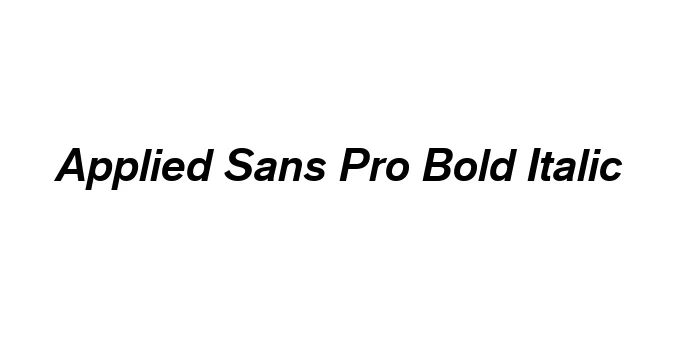
Applied Sans Pro Bold Italic
Designed by Sean Cavender (FontSite Inc.)
Applied Sans Pro Bold Italic is a modern interpretation of the classic grotesque typefaces that defined early 20th-century typography. Developed by FontSite Inc., this font family balances industrial rigidity with contemporary legibility, making it a versatile choice for professional environments. The Bold Italic weight specifically offers a powerful slant that adds dynamic energy and emphasis to headers and callouts without sacrificing the geometric integrity of the letterforms.
This typeface is part of a larger professional suite designed to handle complex typographic hierarchies. With its open apertures and clean stroke endings, it performs exceptionally well in both digital interfaces and high-resolution print. It bridges the gap between the mechanical feel of DIN and the humanist touches of modern sans-serifs, providing designers with a reliable tool for branding, corporate identity, and technical documentation.
Applied Sans Pro Bold Italic Best Uses
Perfect for modern logos and brand guidelines that require a clean, authoritative look.
The bold italic style is ideal for pull quotes and energetic subheadings in magazines.
High legibility makes it suitable for CTA buttons and highlighted navigational elements.
Great for high-impact headlines and promotional banners needing a professional edge.